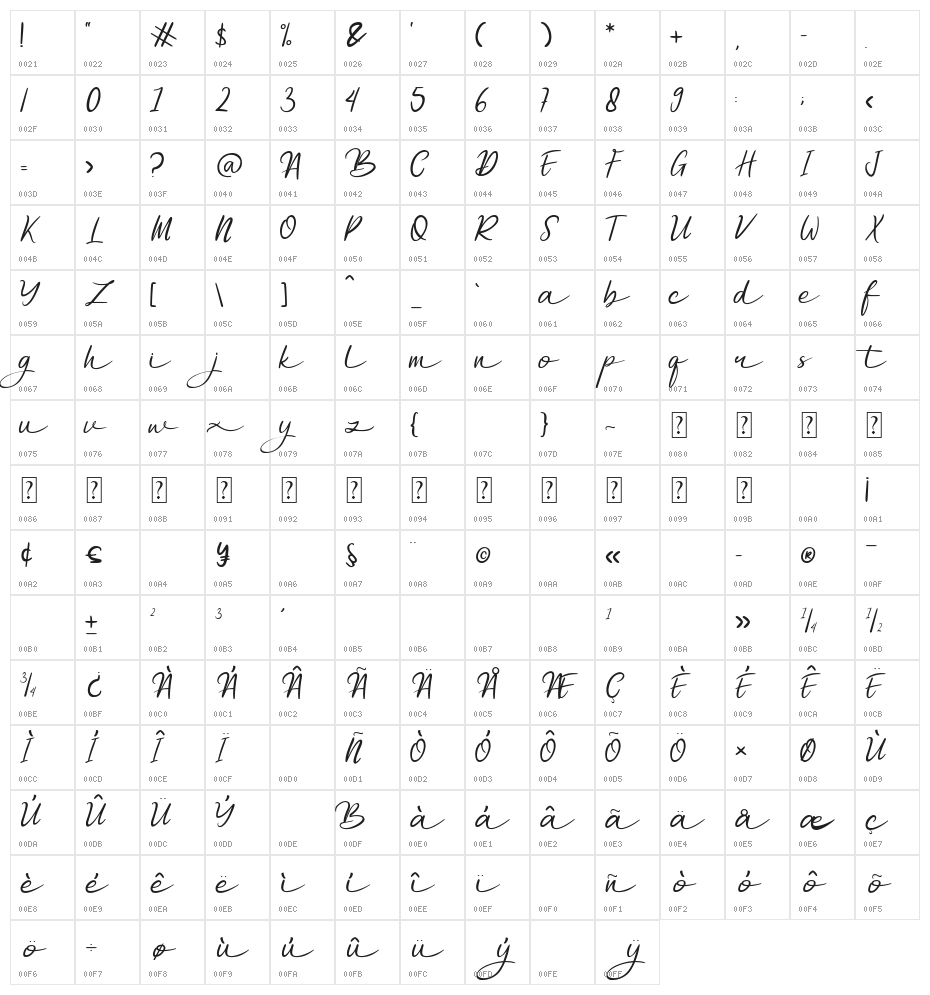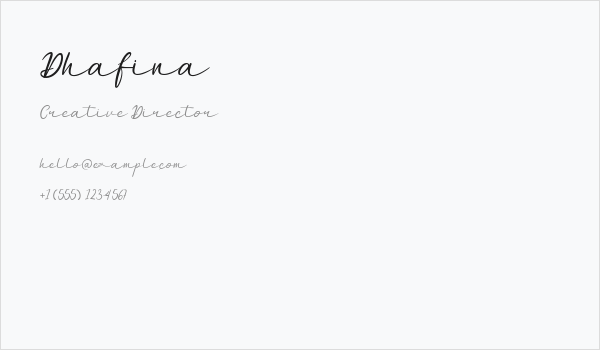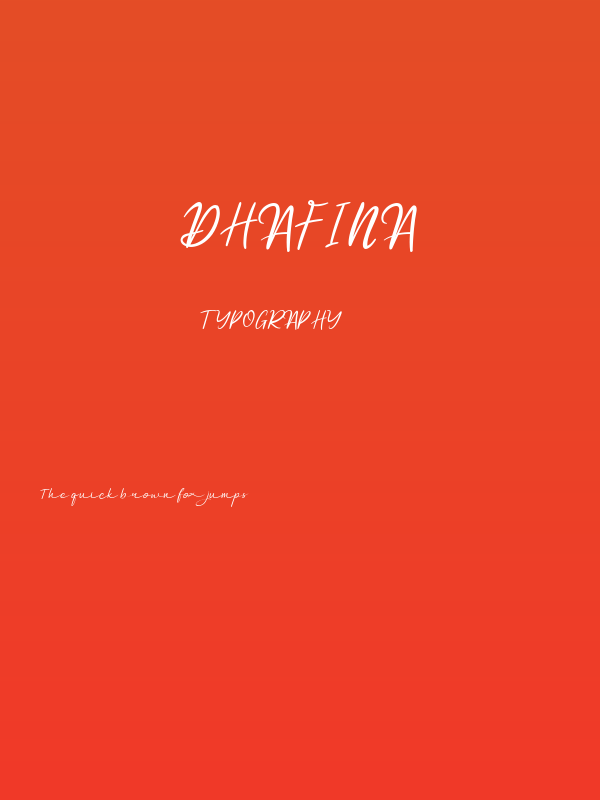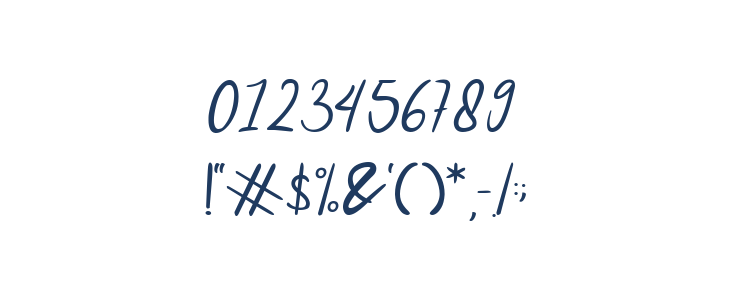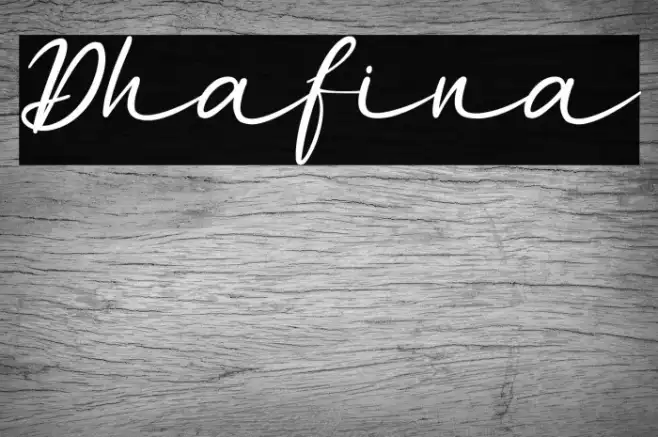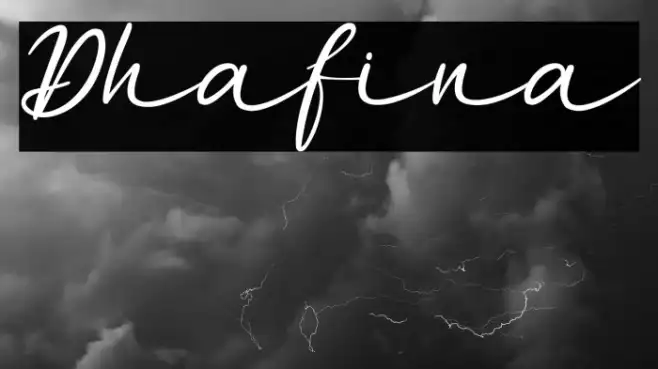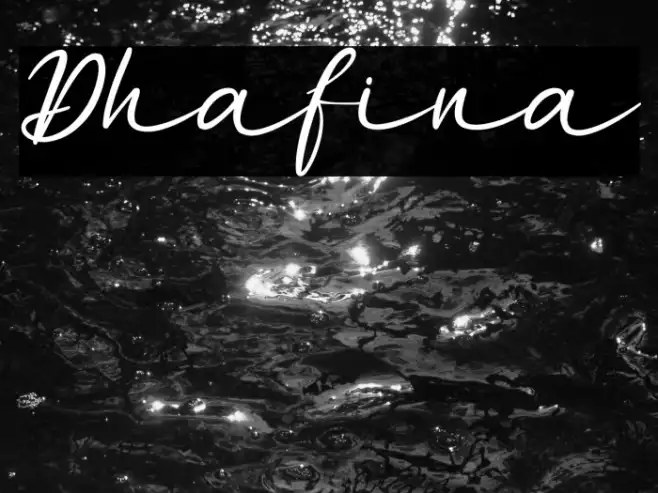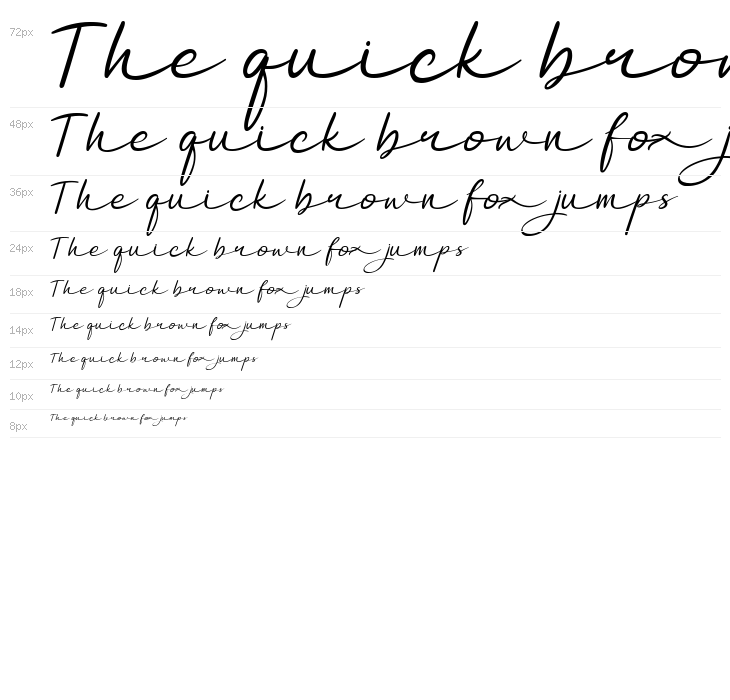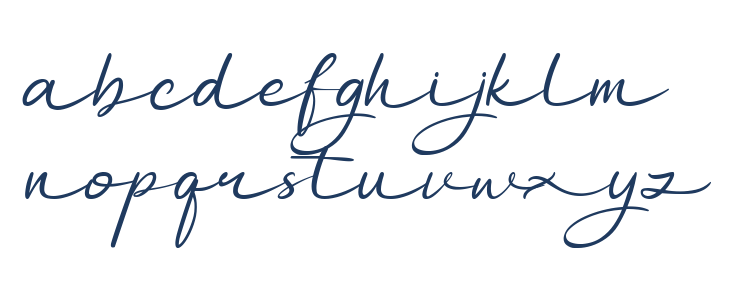
Dhafina Font
Dhafina Description
This elegant script font features a fluid and graceful design, characterized by its smooth, flowing lines and natural handwriting style. The uppercase letters are bold and slightly slanted, giving a sense of movement and sophistication. The lowercase letters maintain a consistent flow, with some characters extending below the baseline, adding to the font's dynamic appearance. Numbers and special characters are crafted with the same attention to detail, ensuring a cohesive look across all elements. The font's overall aesthetic is both modern and timeless, making it versatile for various design applications.
| Overall Style | Modern, Elegant |
| Proposed Projects | Ideal for wedding invitations, branding, logos, and elegant stationery. |